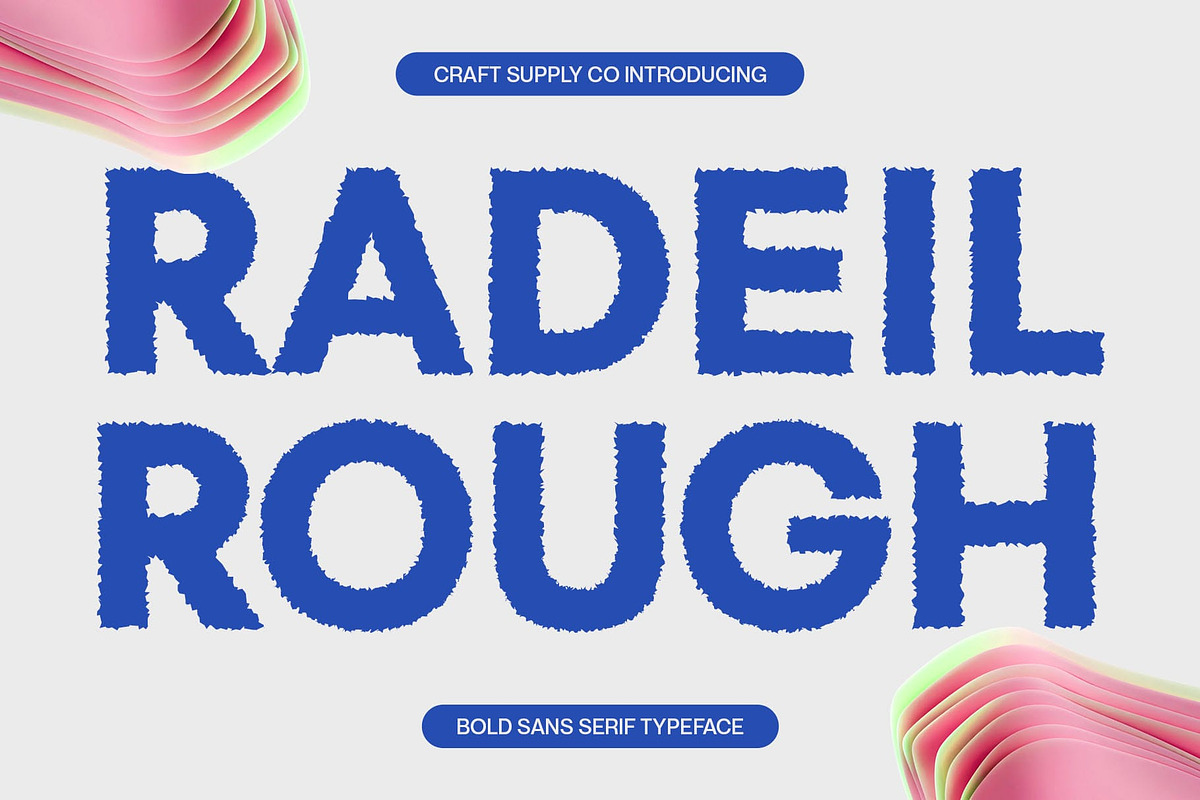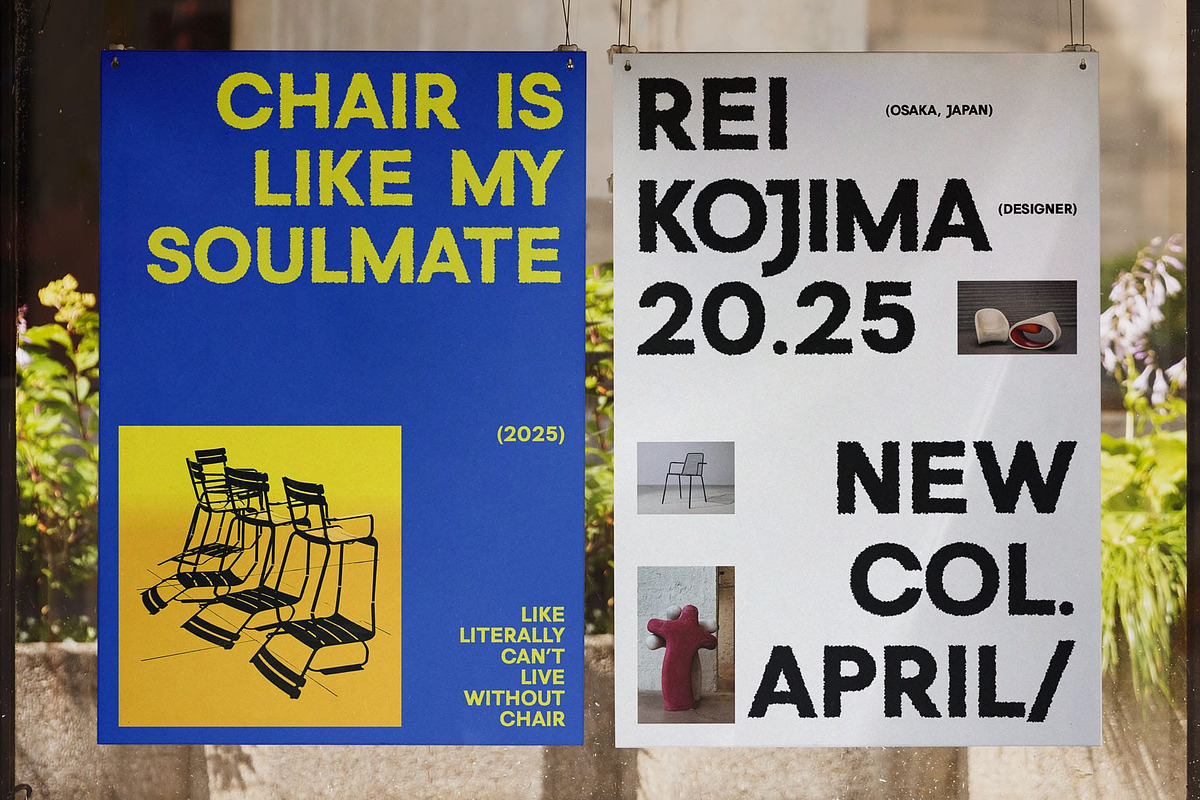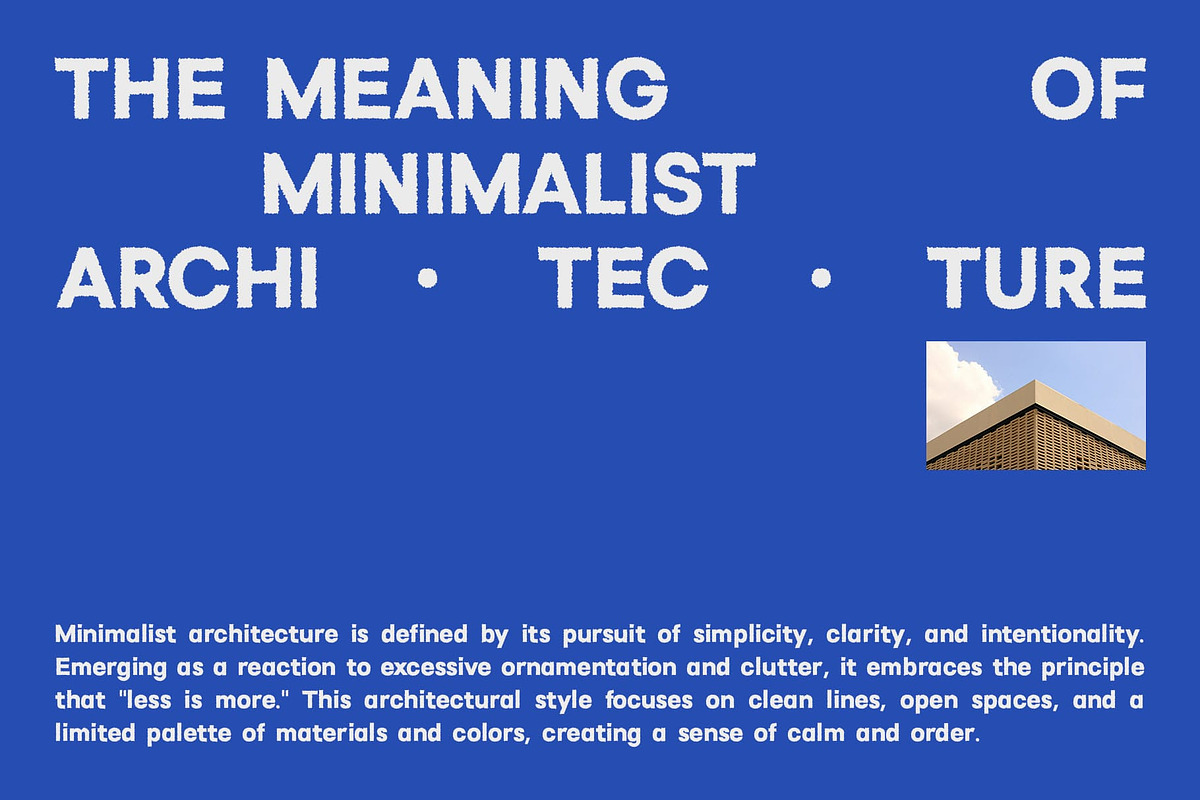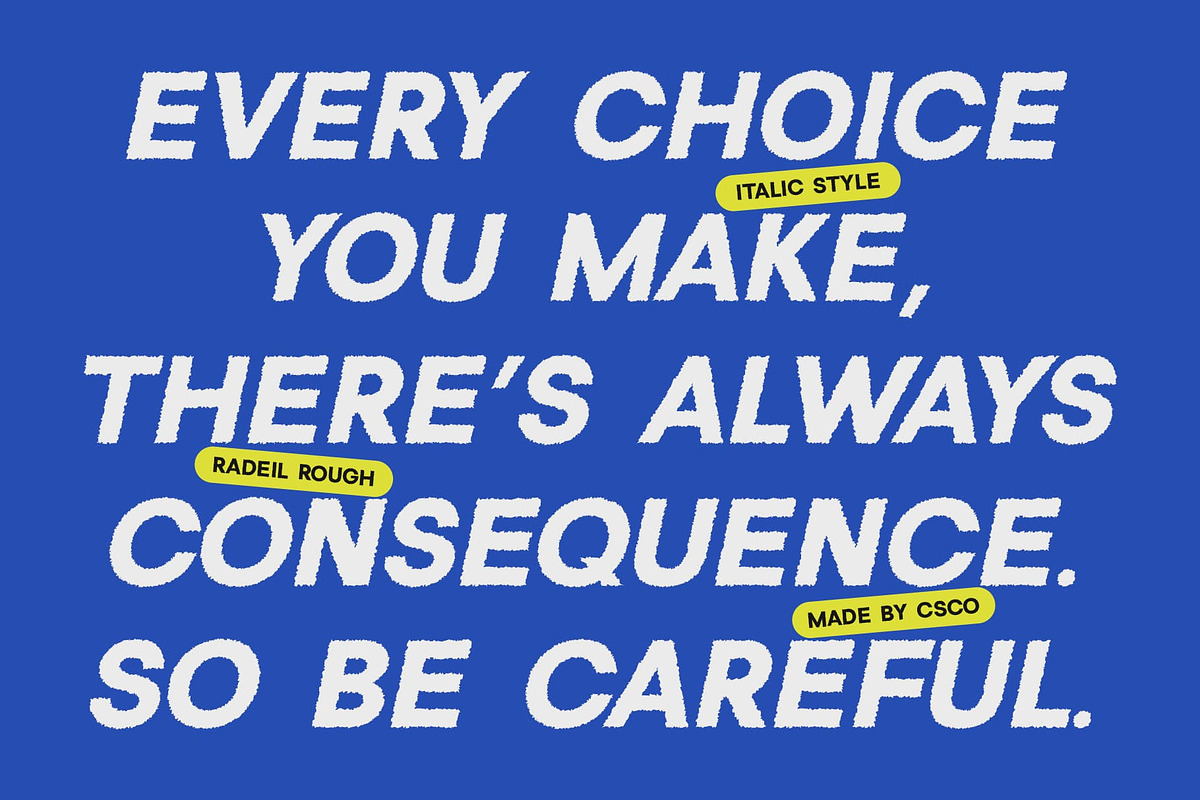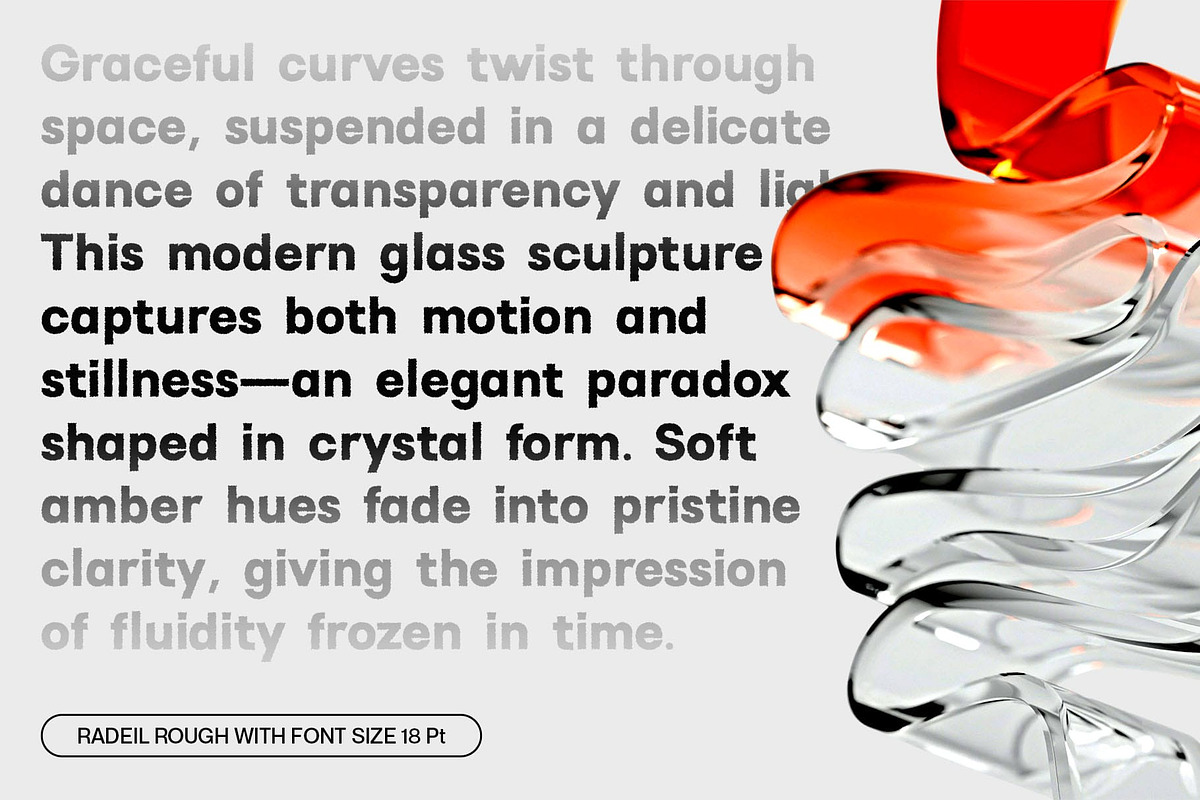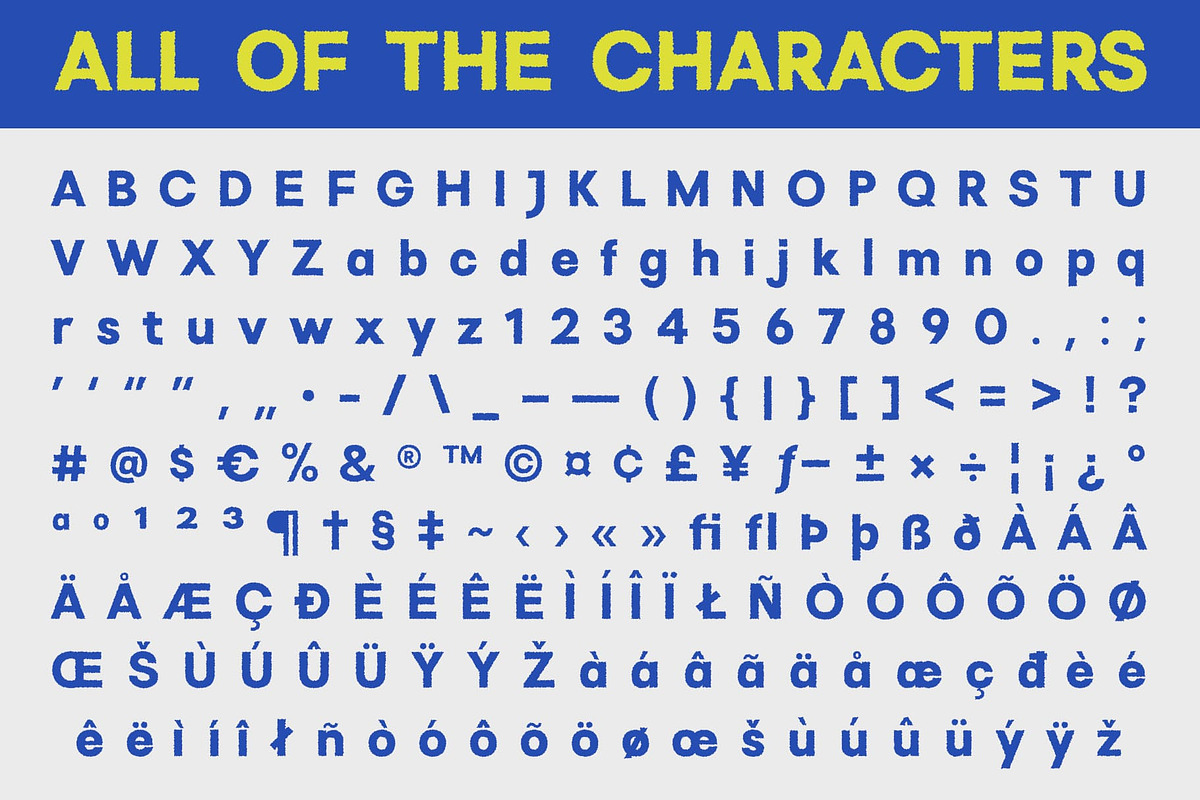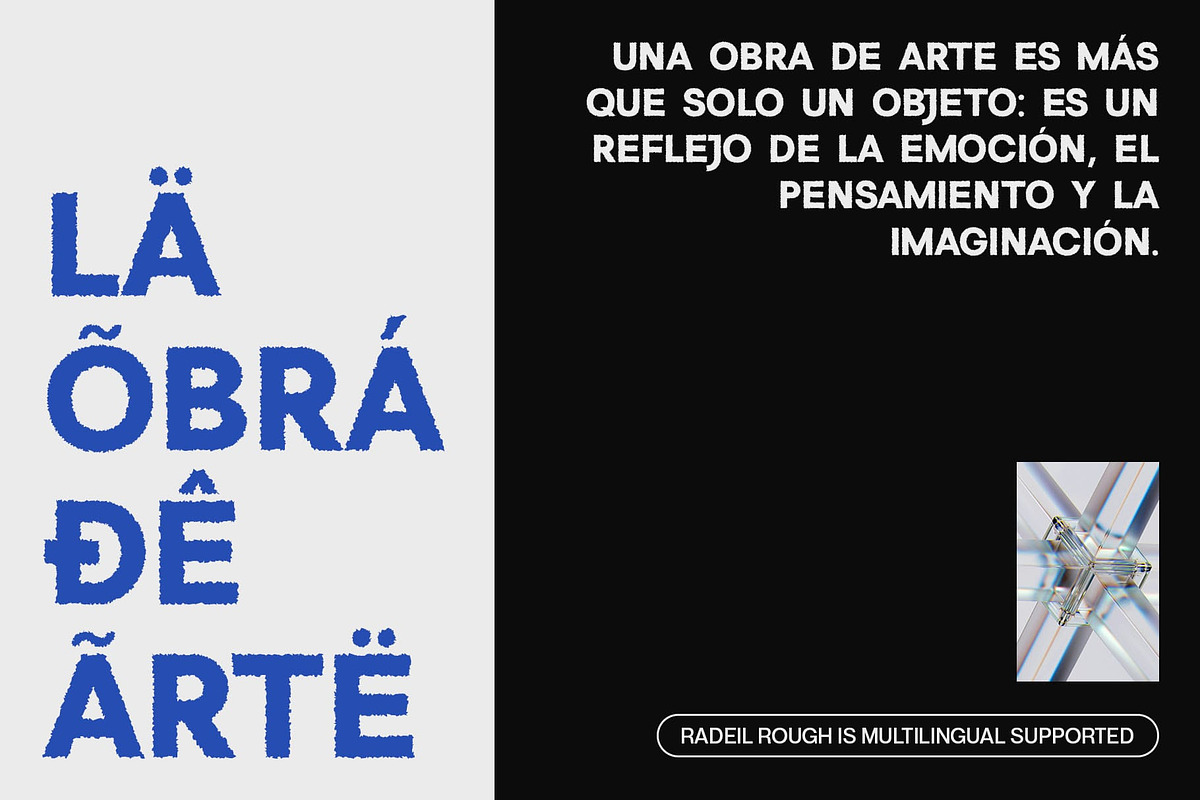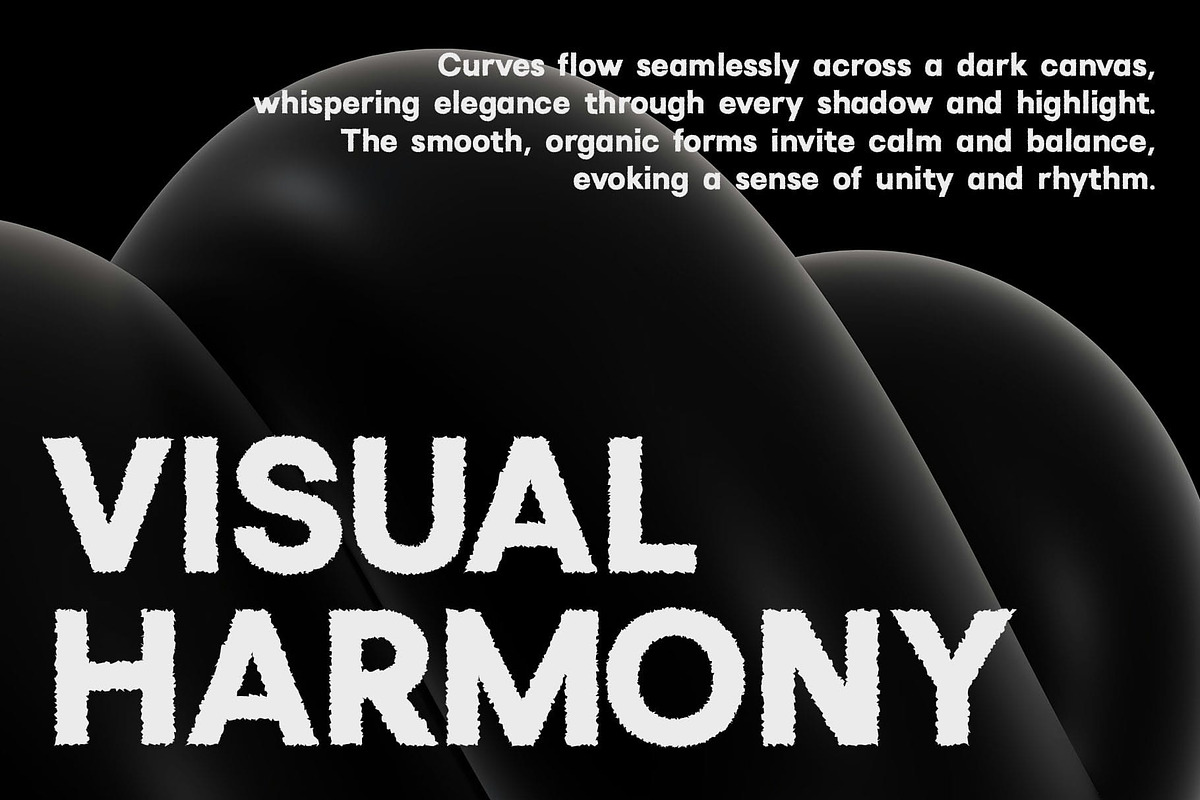
Radeil Rough
Radeil Rough Font – Bold Modern Sans-Serif with Organic Texture
Strong, Precise Geometric Shapes Radeil Rough is a bold sans serif font built around precise geometric letterforms, creating a clean and contemporary visual language. The font’s strong structure delivers a confident and professional appearance, perfect for projects that require clarity and impact without sacrificing style.
Expressive Rough Texture for Character What sets Radeil Rough apart is its distinctive rough texture, which overlays the clean geometry with an organic, tactile quality. This handcrafted effect adds depth and personality, bringing warmth and authenticity to the otherwise modern design.
Versatile for Bold Branding and Creative Expression Designed to meet the needs of modern branding, Radeil Rough strikes a balance between boldness and approachability. It suits brands that want to communicate strength and reliability while embracing a natural, artisanal vibe. This makes it ideal for logos, packaging, editorial layouts, and more.
Perfect for Projects Combining Modernity and Craftsmanship Whether used in high-impact headlines, eye-catching posters, or sophisticated packaging, Radeil Rough stands out by blending contemporary precision with a handcrafted feel. Its unique texture ensures your design projects are not only modern and professional but also rich in character and visual interest.